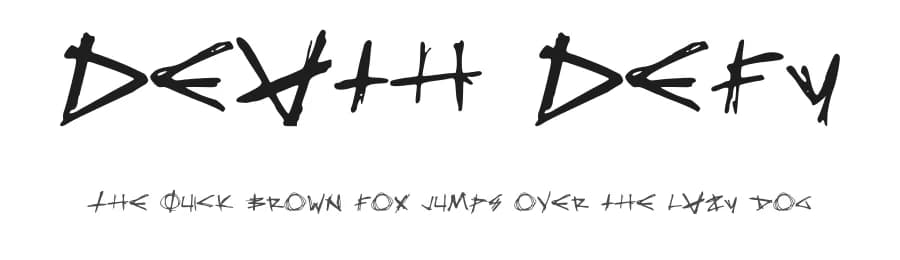
About Death Defy Font
Death Defy is a script & handwritten font designed by Zack Ring. It includes 141 glyphs, a medium weight, TTF (TrueType) format, and 121 languages. Death Defy is free to download; check the license details on this page before commercial use. Script & handwritten fonts like Death Defy work best for wedding invitations, greeting cards, signatures, and elegant branding.
Death Defy Font is a script font that shines as a display or heading face. Pair it with a clean sans-serif or serif font for body text β the contrast creates a clear hierarchy while the two styles stay balanced and easy to read.
Death Defy Font
by Zack Ring
Death Defy Font is a script handwritten typeface by Zack Ring, ideal for logos, invitations, branding, and creative projects.